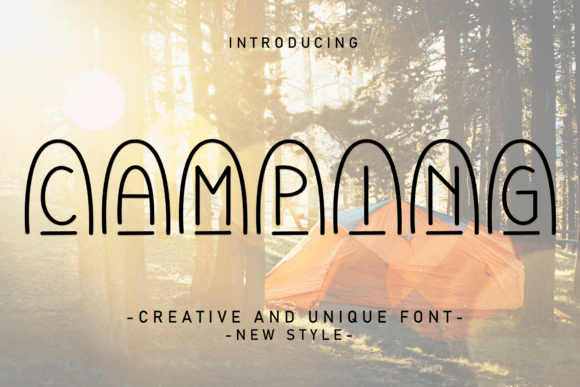
The Great Outdoors, In Fonts: A Deep Dive into Camping Font
I still remember the design project that led me to discover the Camping Font. I was working on a branding campaign for a new outdoor gear company, and I needed a font that would capture the adventurous spirit of camping, hiking, and exploring the great outdoors. After hours of scouring font libraries and trying out different combinations, I stumbled upon Camping Font – and it was love at first sight! ✨
An Honest Review of Camping Font
- ✅ Modern and bold vibe that’s perfect for making a statement
- ✨ Unique and decorative style that’s sure to stand out
- 💡 Highly versatile and can be used for a wide range of design projects, from logos and posters to social media graphics and more
- 🎨 Great for designs that require a touch of adventure and playfulness
While Camping Font is an amazing addition to any design project, there are a few things to keep in mind: 🤔
- ⚠️ May not be the best choice for body text or long-form content, as it’s quite bold and attention-grabbing
- ⚠️ Some characters may not be suitable for small font sizes, so be sure to test it out before finalizing your design
A Practical Guide to Using Camping Font
Camping Font comes with a range of OpenType features and glyphs that can add an extra layer of creativity to your design. Here are a few tips for accessing and using these features:
The Story Behind Camping Font
Camping Font was designed by a team of creatives who wanted to capture the spirit of adventure and exploration that comes with spending time in the great outdoors. Inspired by vintage camping gear and the natural beauty of the wilderness, they created a font that’s both modern and nostalgic. 🌟
Q: What is Camping Font?
A: Camping Font is a modern and bold decorative font that’s perfect for designs that require a touch of adventure and playfulness.
Q: Is Camping Font suitable for body text?
A: While Camping Font is a beautiful font, it’s best suited for headlines, titles, and short-form content. For body text, you may want to choose a font that’s easier to read.